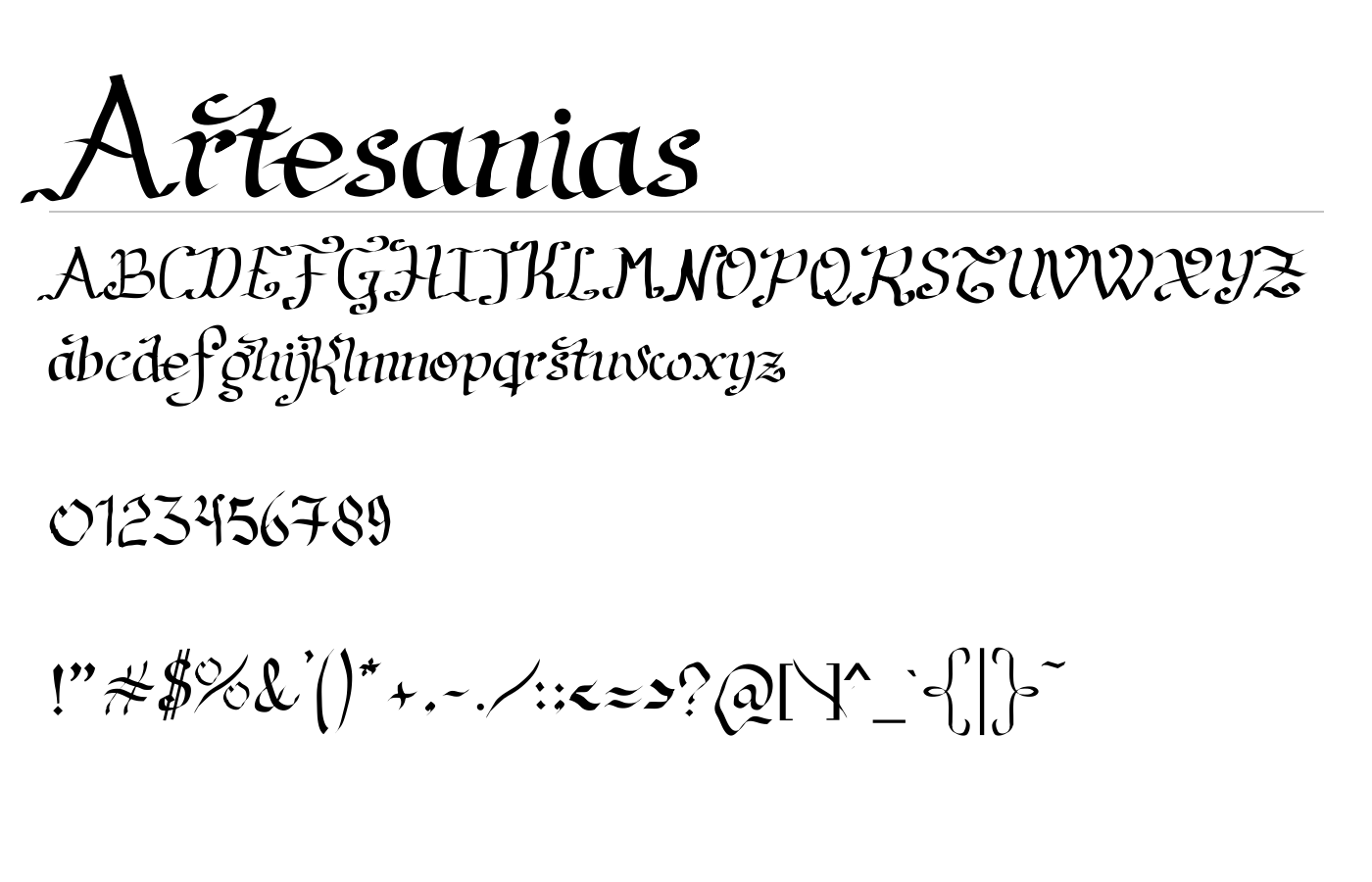
Artesanias is an elegant, blackletter-inspired script font with intricate, calligraphic strokes and high contrast between thick and thin lines. Its unique, decorative letterforms bring a vintage, handcrafted feel ideal for artistic branding, formal invitations, and classic editorial designs. This font works best when used sparingly in headlines or logos to convey sophistication and old-world charm.
Artesanias Font
About Artesanias Font